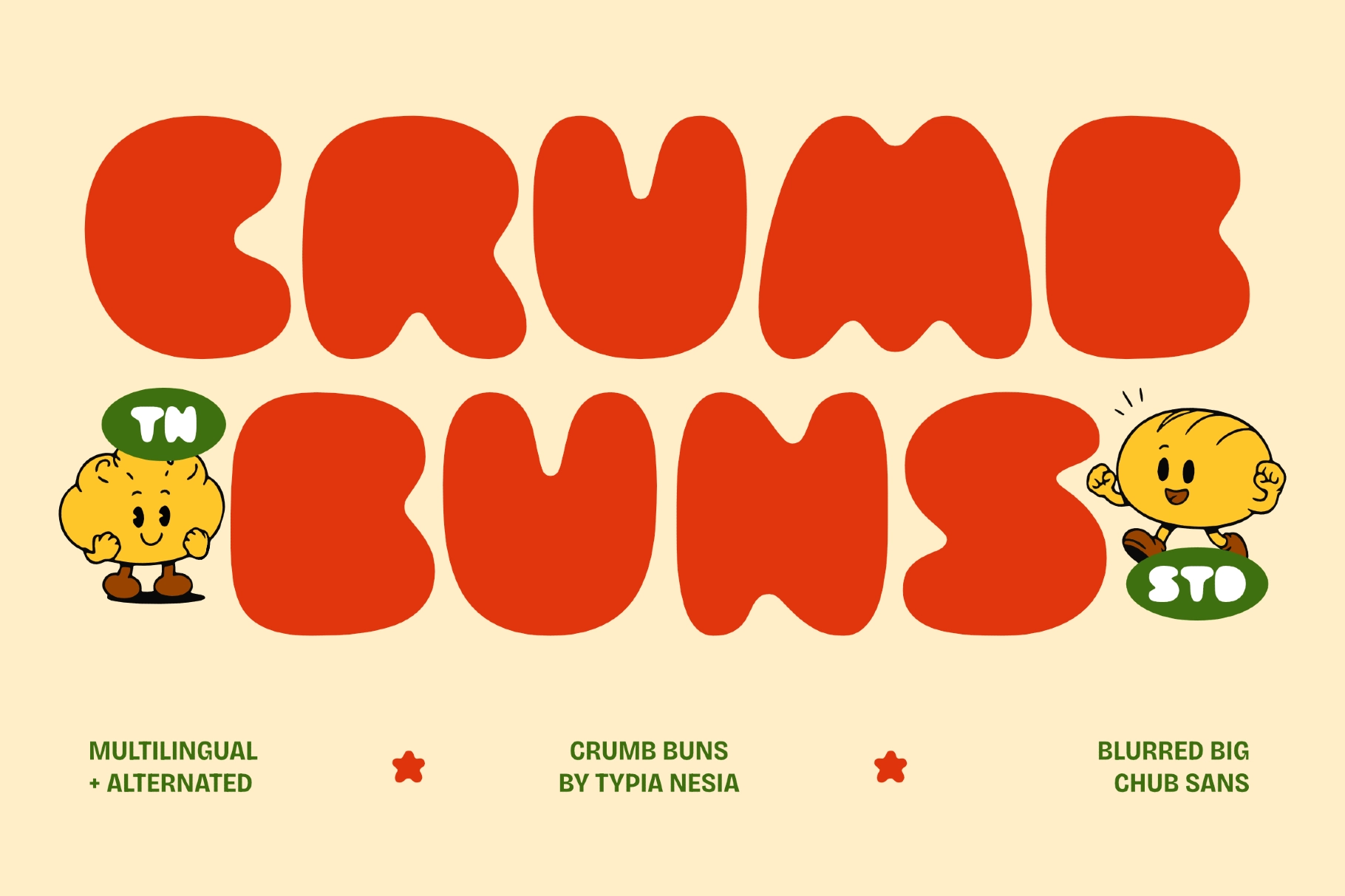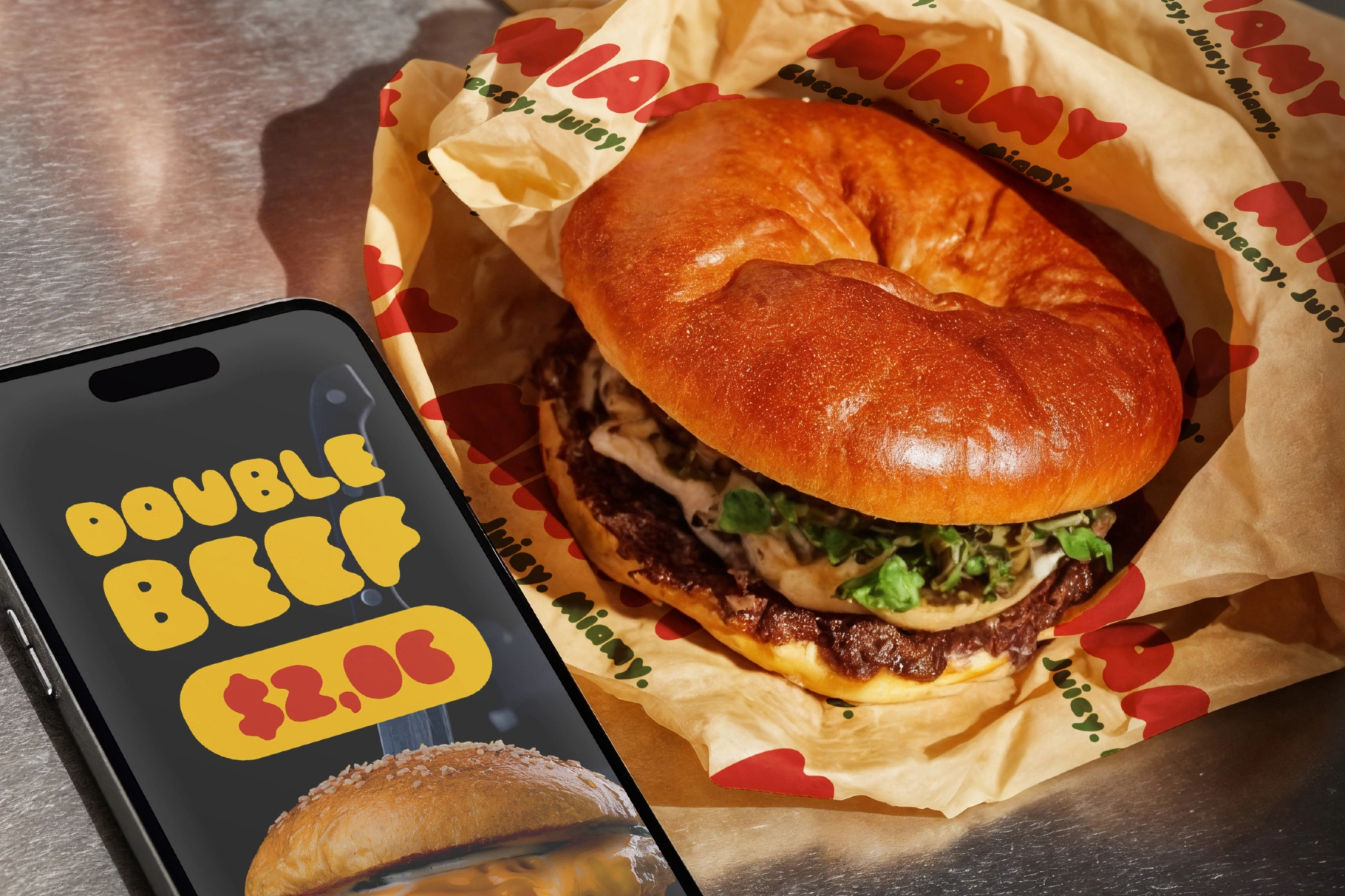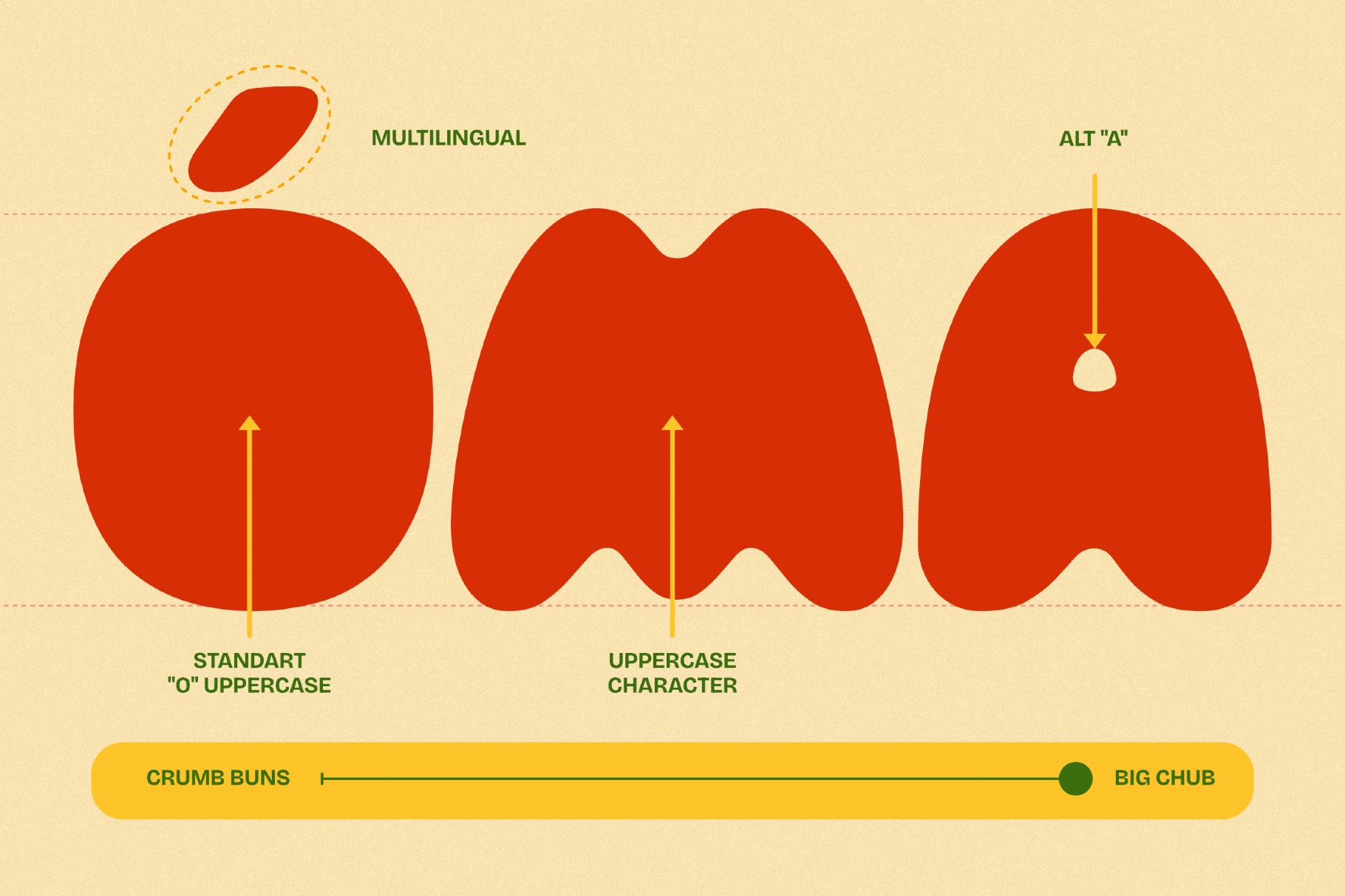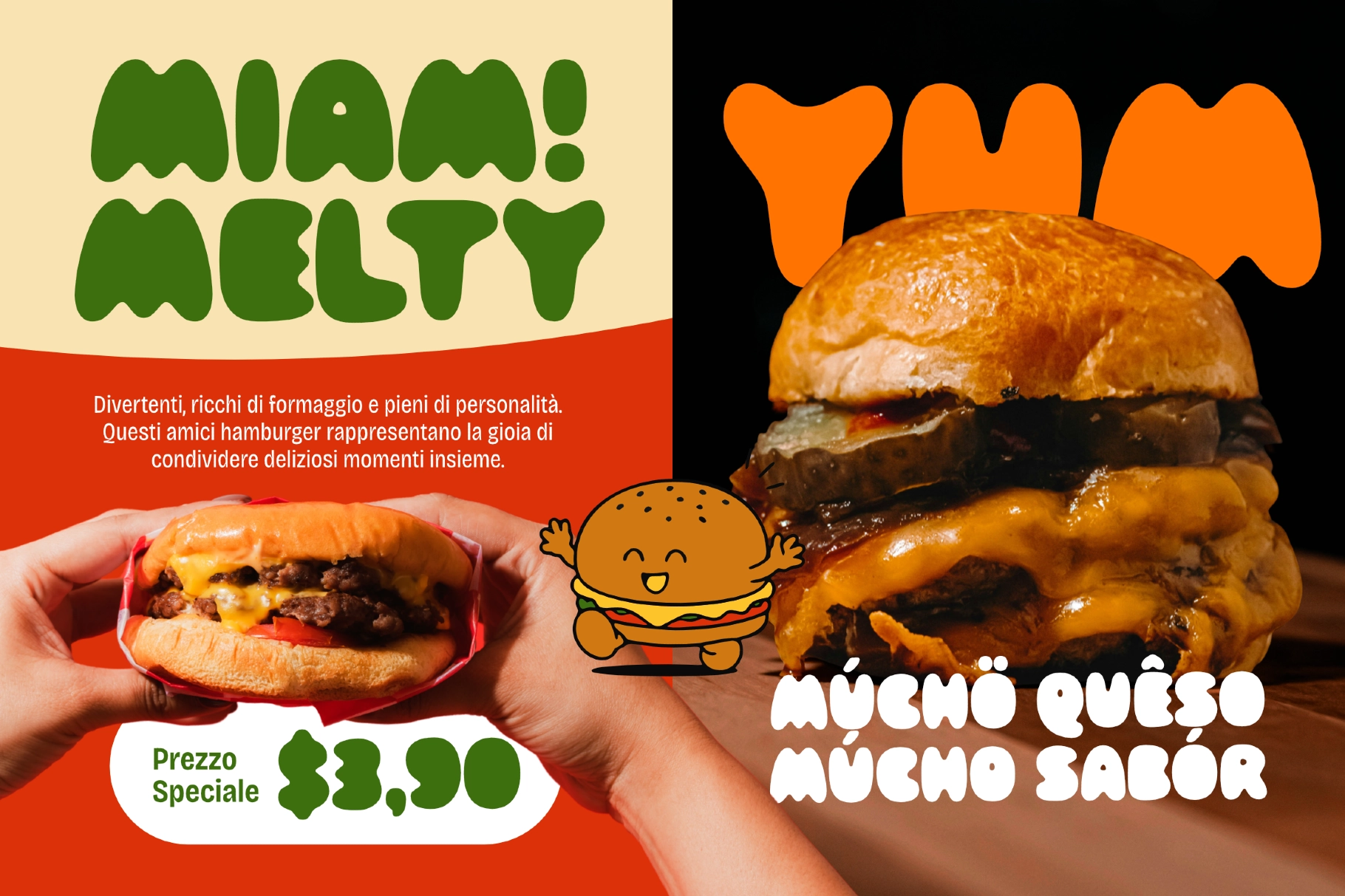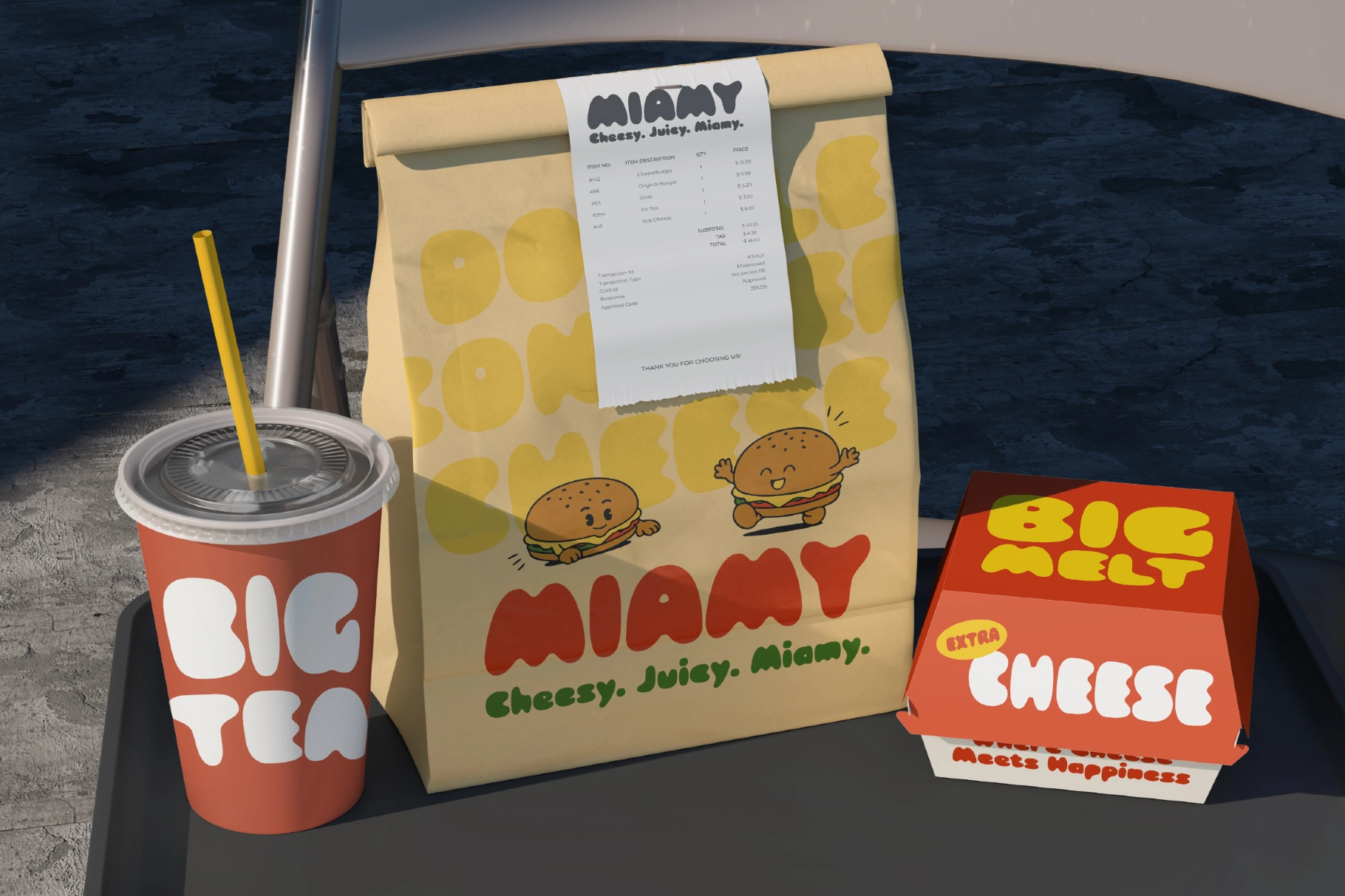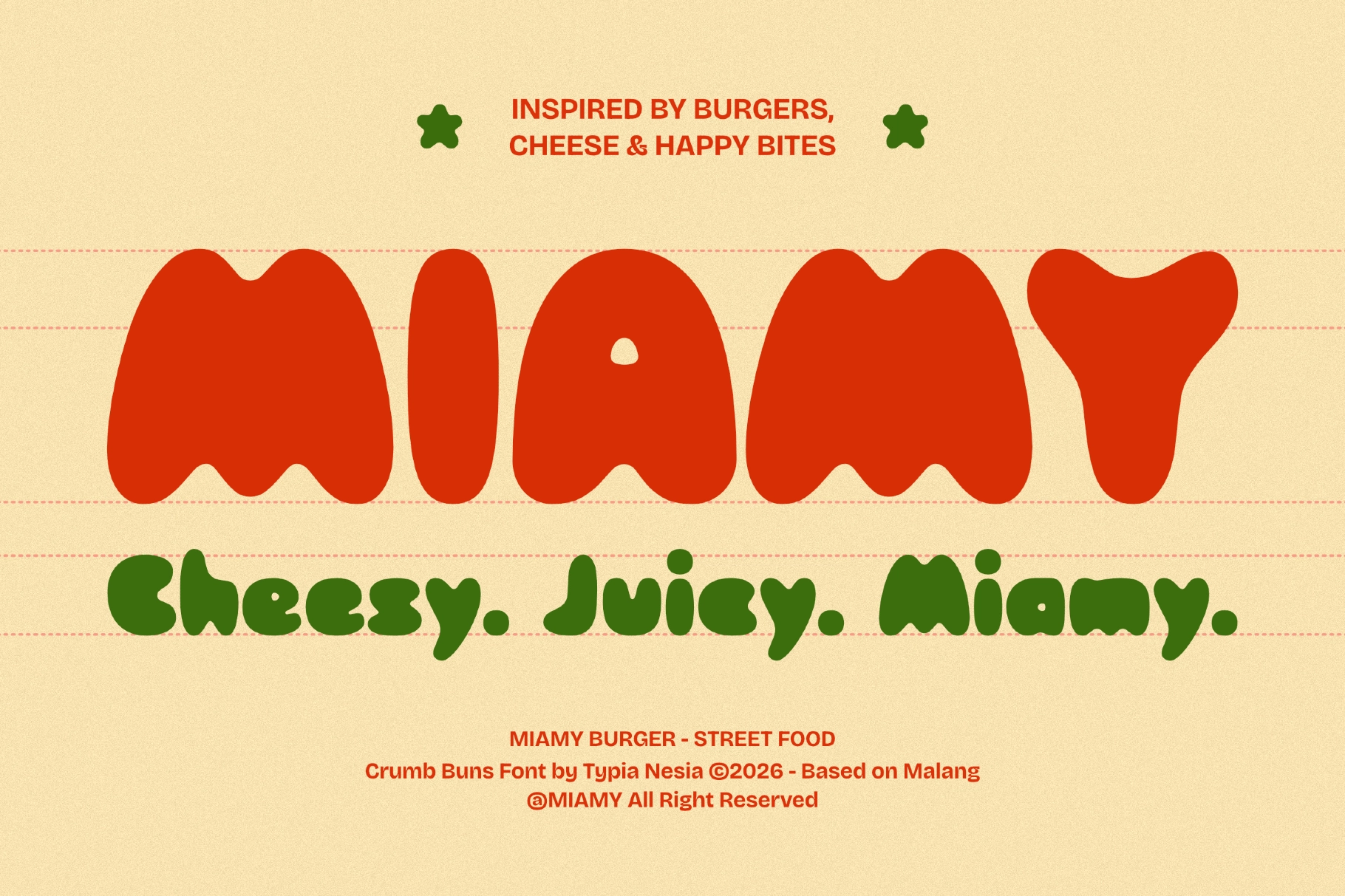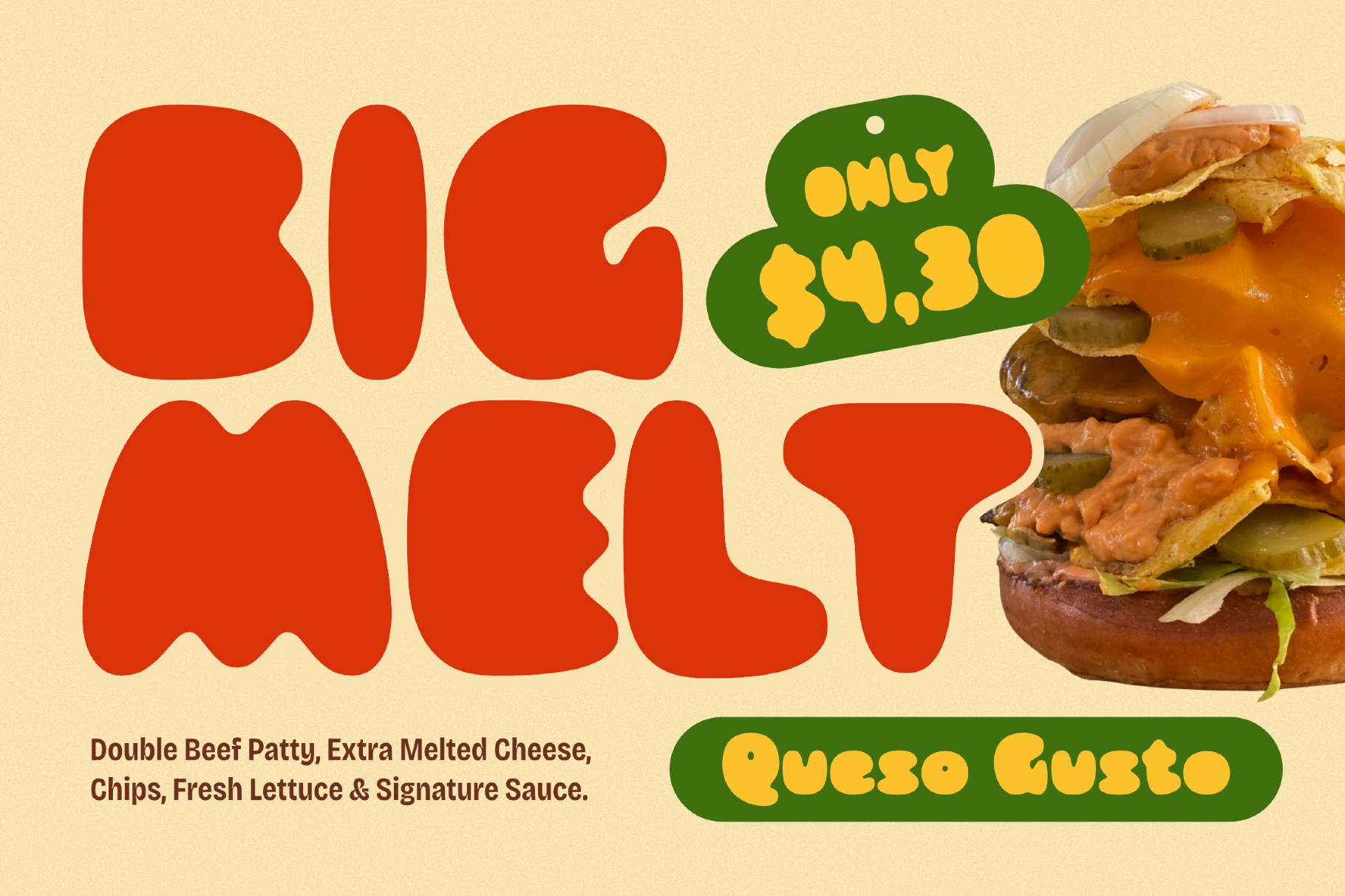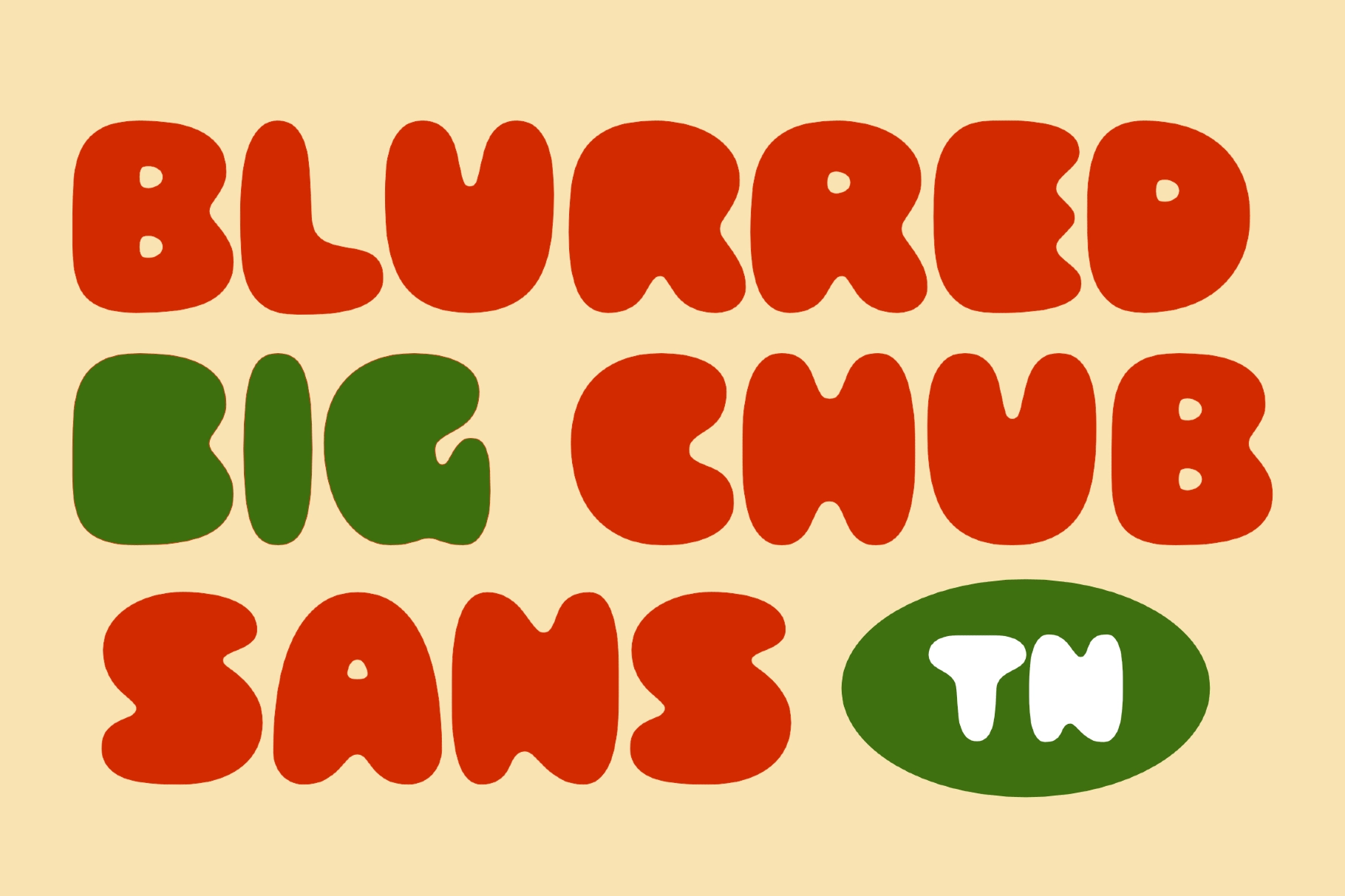
Crumb Buns - Chunky Bubble Display Font
Crumb Buns
Crumb Buns is a chunky bubble display font built from soft rounded shapes that puff and dent at the joints, like dough pressed straight out of a mold. The uppercase leans playful and squeezed, while alternate forms for O, M, and A add extra bounce without breaking the rhythm.
The face carries a cheerful, snack-shop personality that works best big and loud. Use it for bakery packaging, snack labels, kids' branding, birthday party invites, sticker packs, café signage, social media graphics, and playful poster design.